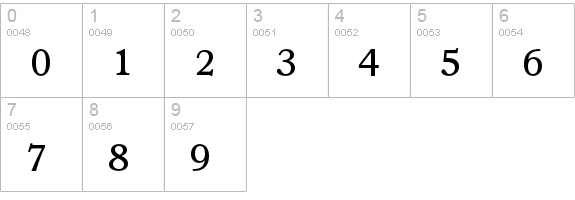
Bookman Font Details
Bookman font is a classic and versatile typeface that exudes elegance and readability. Its timeless design makes it suitable for a wide range of projects, from books to branding. With its well-balanced proportions and distinctive serifs, Bookman font adds a touch of sophistication to any text. Whether you're designing a magazine layout, creating a logo, or working on a poster, Bookman font is sure to make your text stand out. Best of all, Bookman font is available for free download at FontsMarket.com. This means you can easily access and use this beautiful font in your projects without any cost. Don't miss out on the opportunity to enhance your designs with the timeless charm of Bookman font. Download it today and add a touch of elegance to your typography.